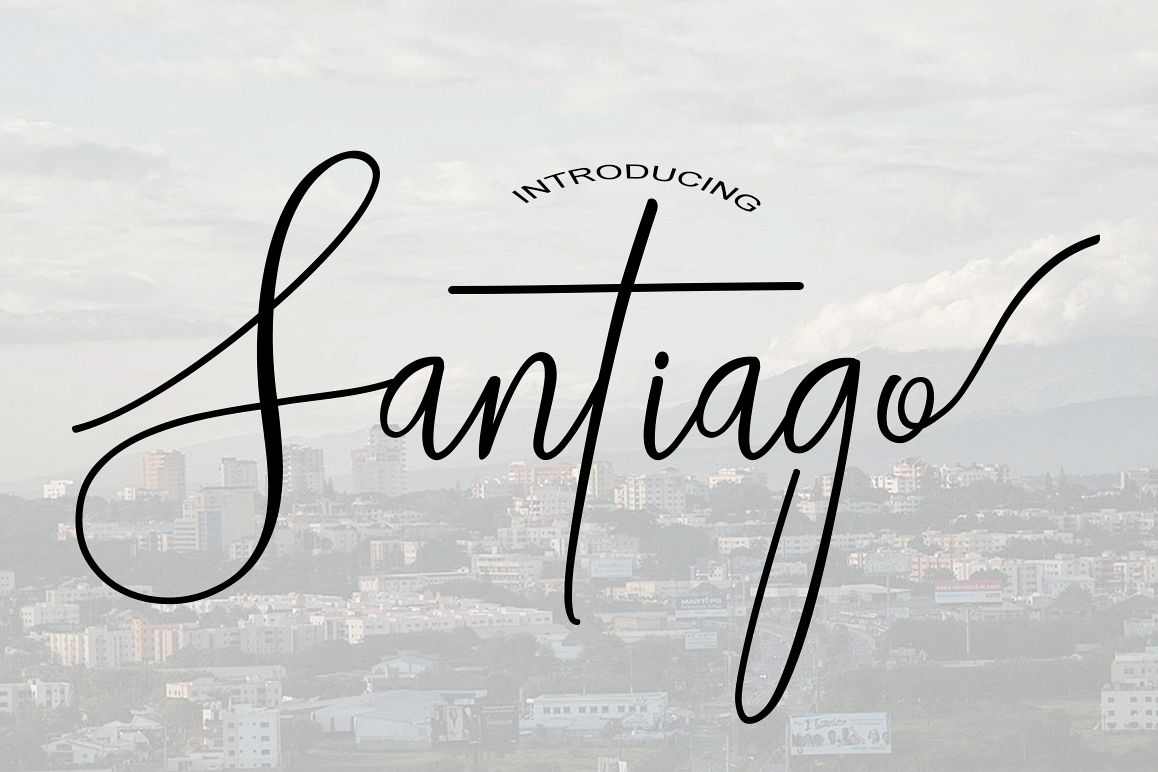
Santiago
Santiago Script New fresh & modern style with handmade calligraphy, decorative characters and dancing lineage! So wonderful are invitations like greeting cards, branding material, business cards, quotes, posters, and more !! ZIP files include the following: Santiago .OTF Santiago .TTF  If you do not have programs that support OpenType features like Adobe Illustrator and CorelDraw X Versions, you can access all alternative flying machines using Font Book (Mac) or Character Map (Windows)